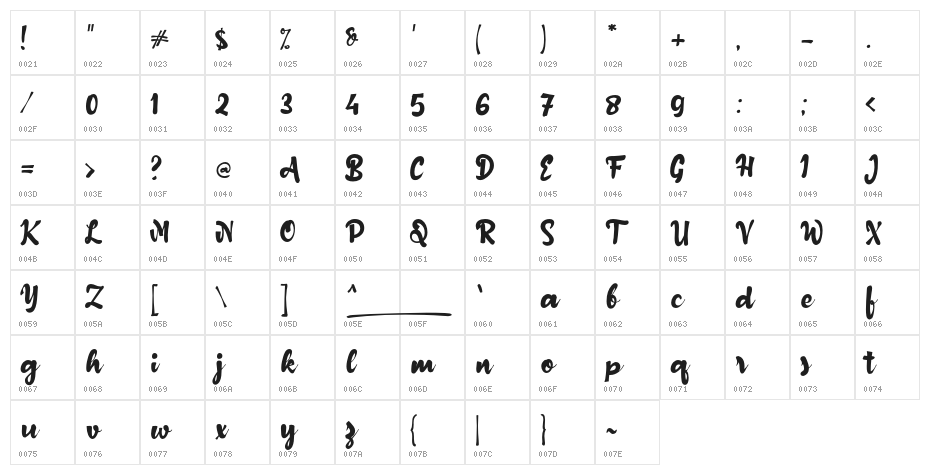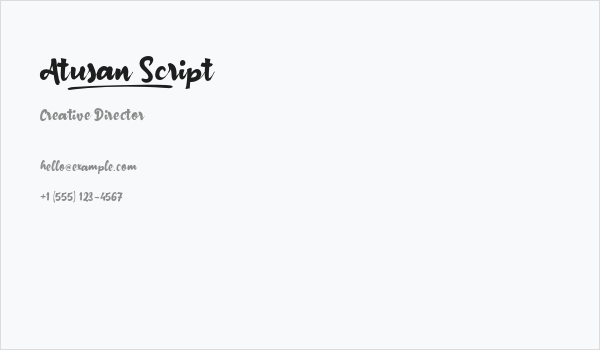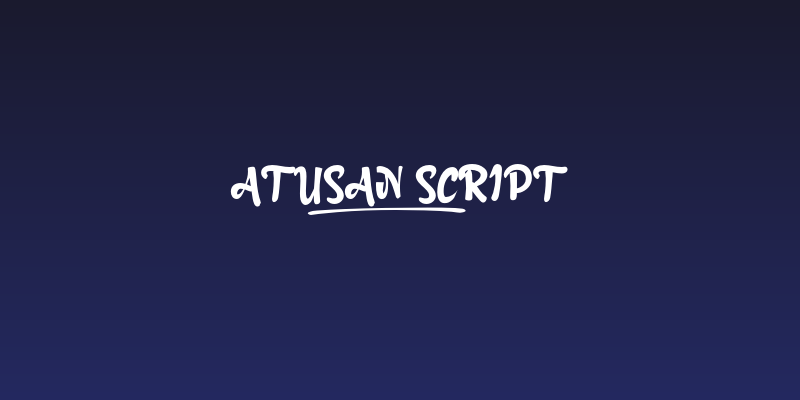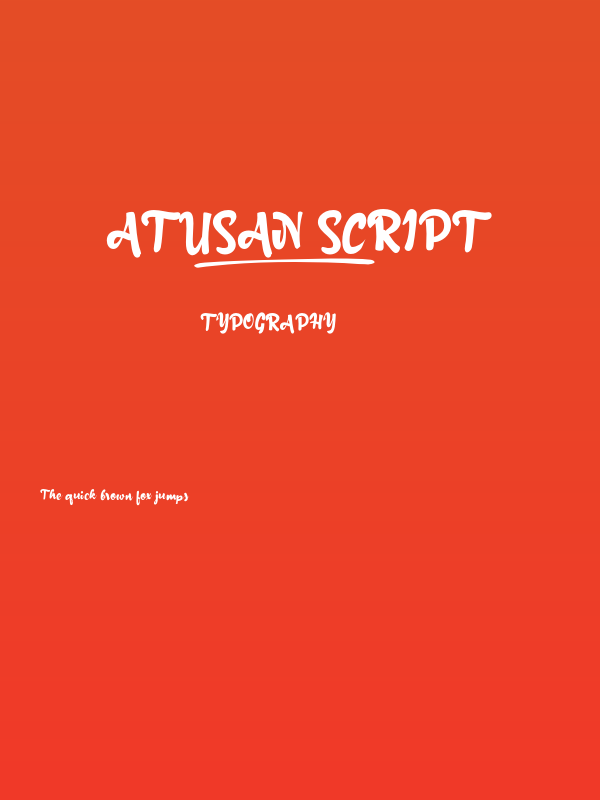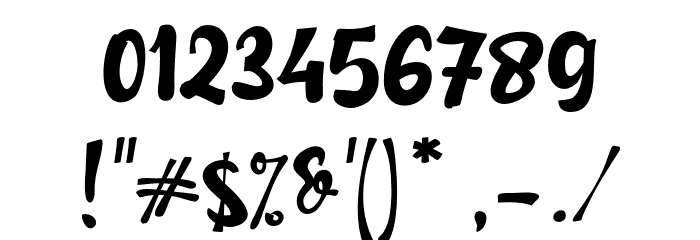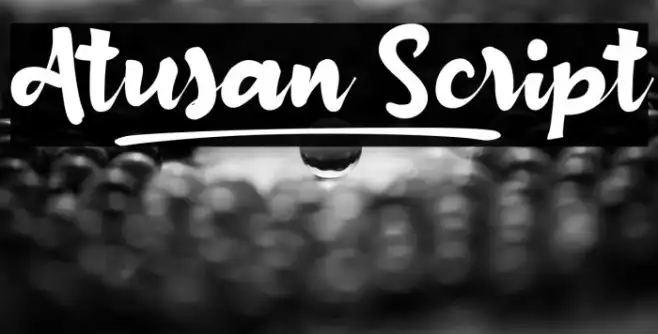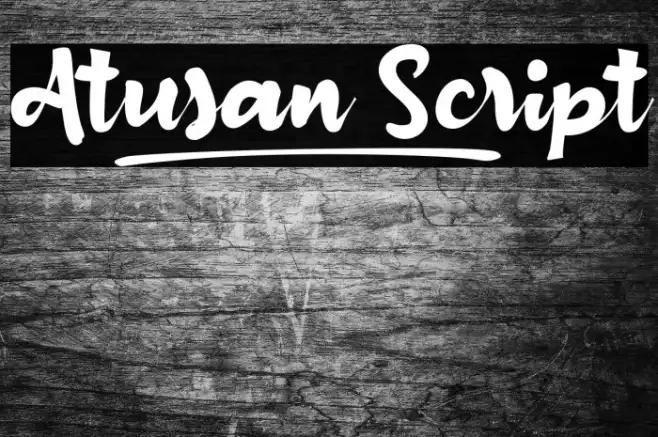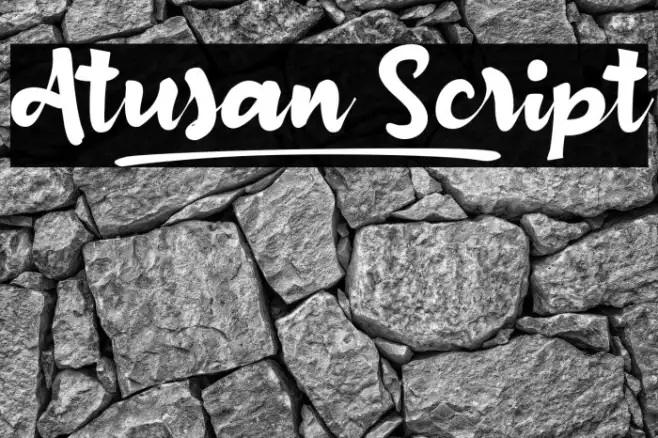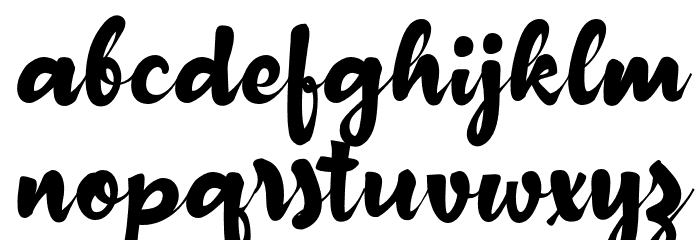
Atusan_Script Font
Atusan_Script Description
This font features a bold and flowing script style, characterized by its smooth, cursive strokes and elegant curves. The uppercase letters are distinct and prominent, while the lowercase letters maintain a consistent flow, enhancing readability. The numerals are well-integrated with the overall design, maintaining the script's fluidity. Special characters are creatively styled, adding to the font's decorative appeal. The overall appearance is both artistic and legible, making it suitable for various creative applications.
| Use Case | Logos, Invitations, Decorative Text |
| Proposed Projects | Ideal for wedding invitations, greeting cards, branding projects, and decorative signage. |